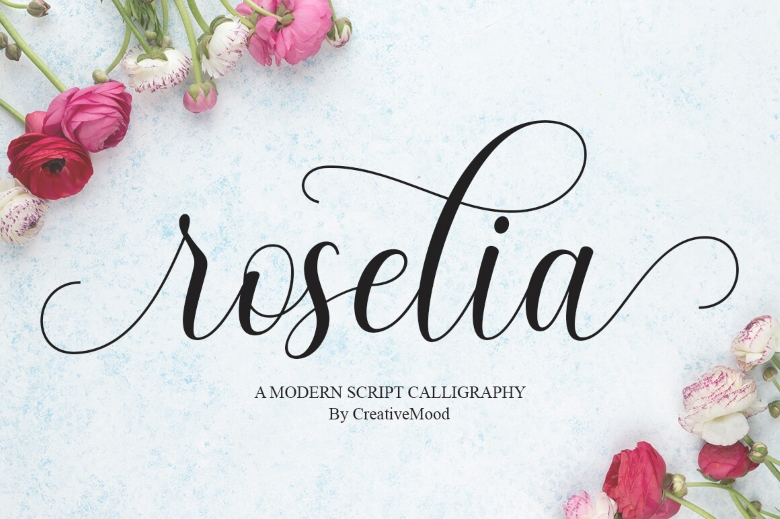
Roselia Font
Roselia Calligraphy Font is a cute and lovely calligraphy font containing playful calligraphy letters that skip the baseline. It has a careless, and still exquisite look at the same time. It can be used for, logo, weddings, heading, t- shirt, letter head, signages, labels, news, post, badges etc.
Roselia Calligraphy Font